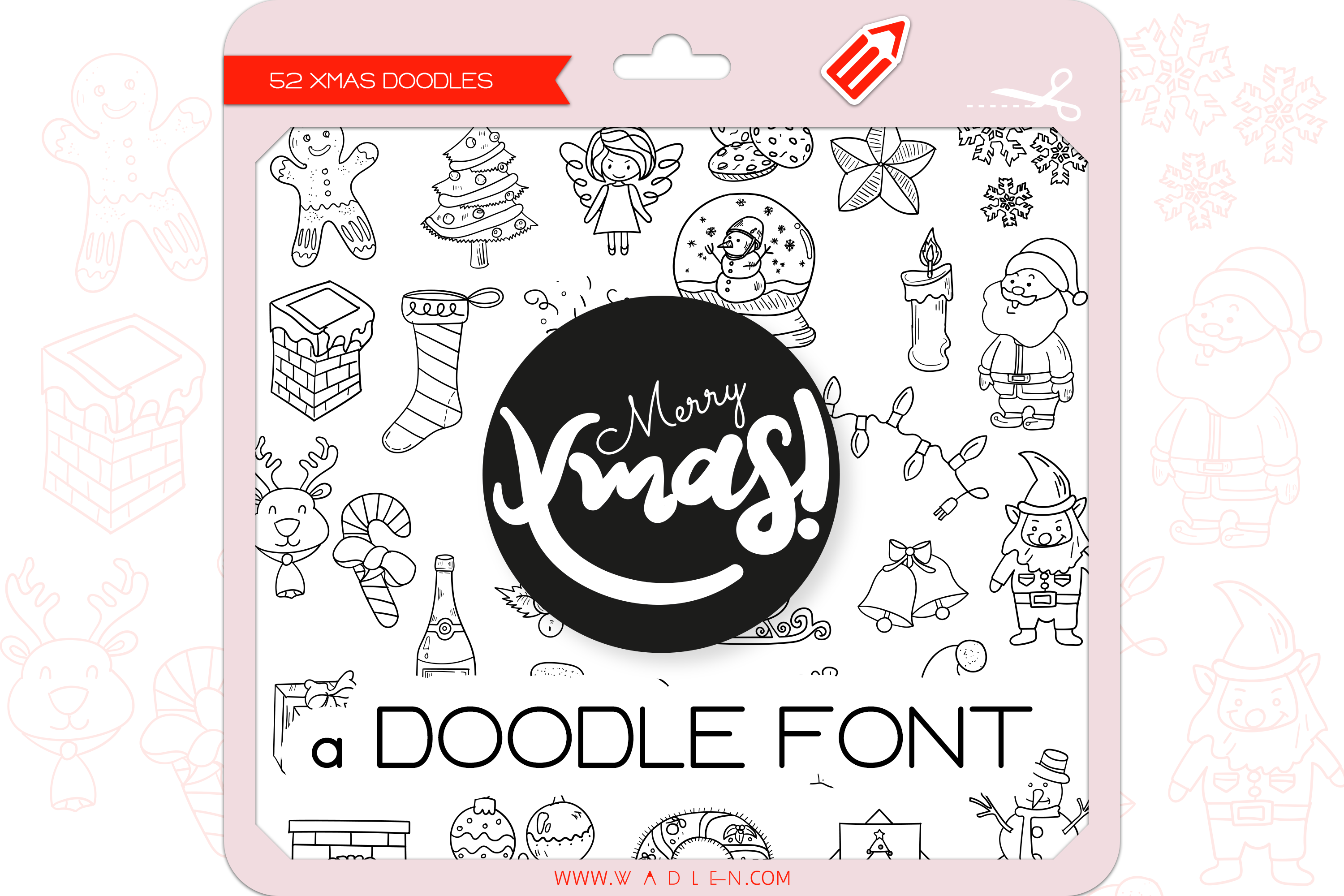
Xmas Doodles - Dingbats Font
Xmas dingbats font containing 52 hand-drawn Christmas doodles.
angel, bells, bow, candle, candy cane, Champagne, chimney, Christmas card, Christmas tree, cookies, cracker, elf, fireplace, gingerbread, holly, lights, mitten, ornaments, present, reindeer, sack, Santa Claus, Santa's hat, sleigh, snowflakes, snow globe, snowman, star, stocking, wreath